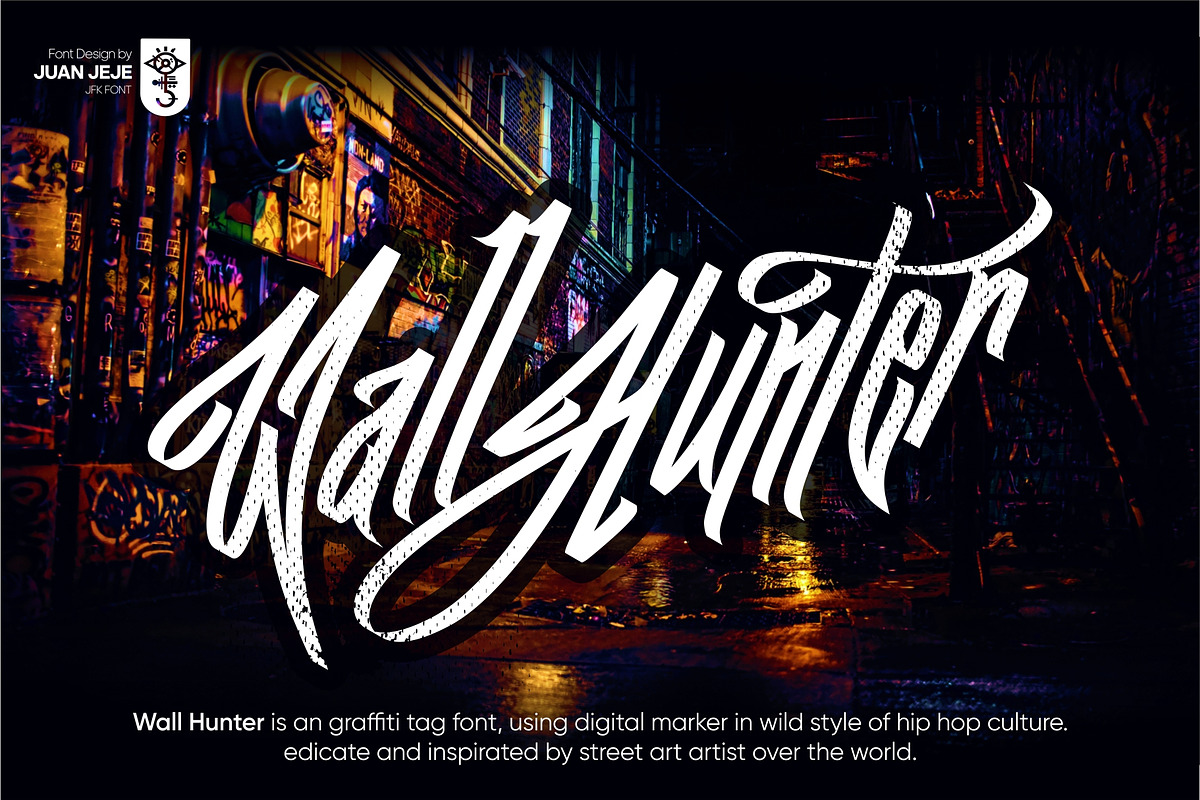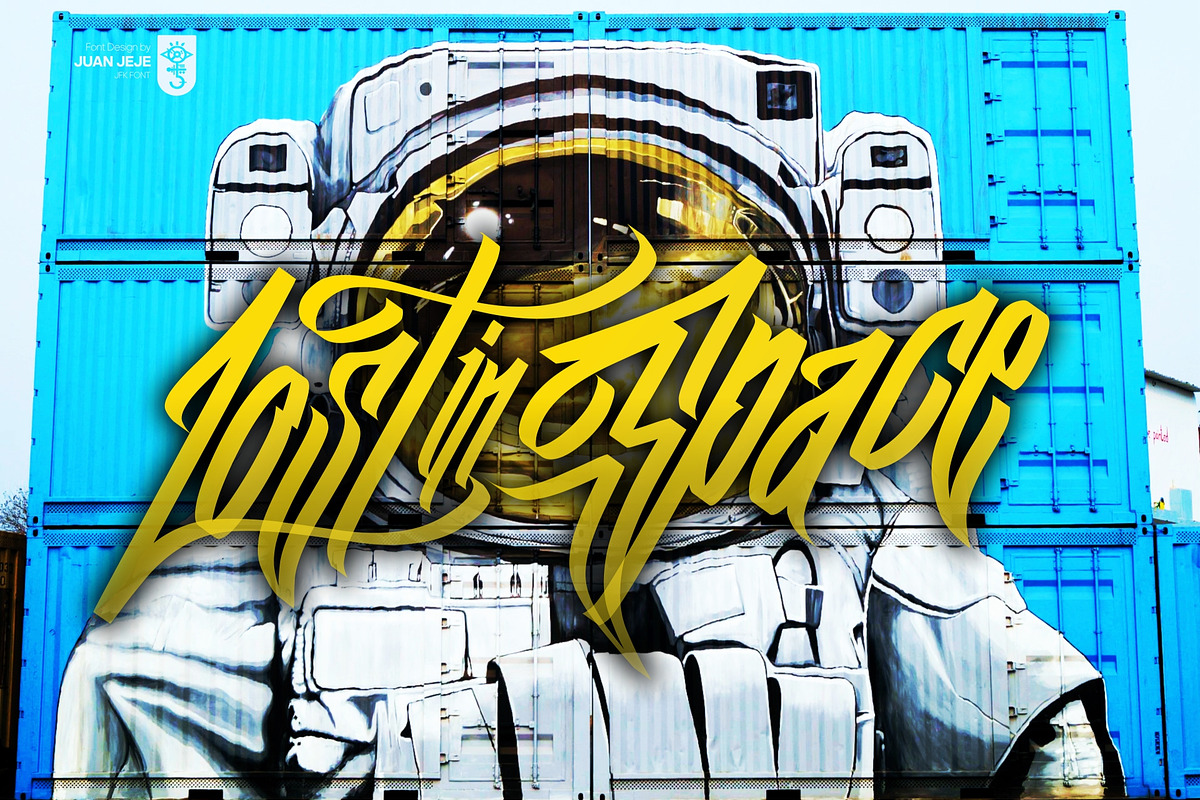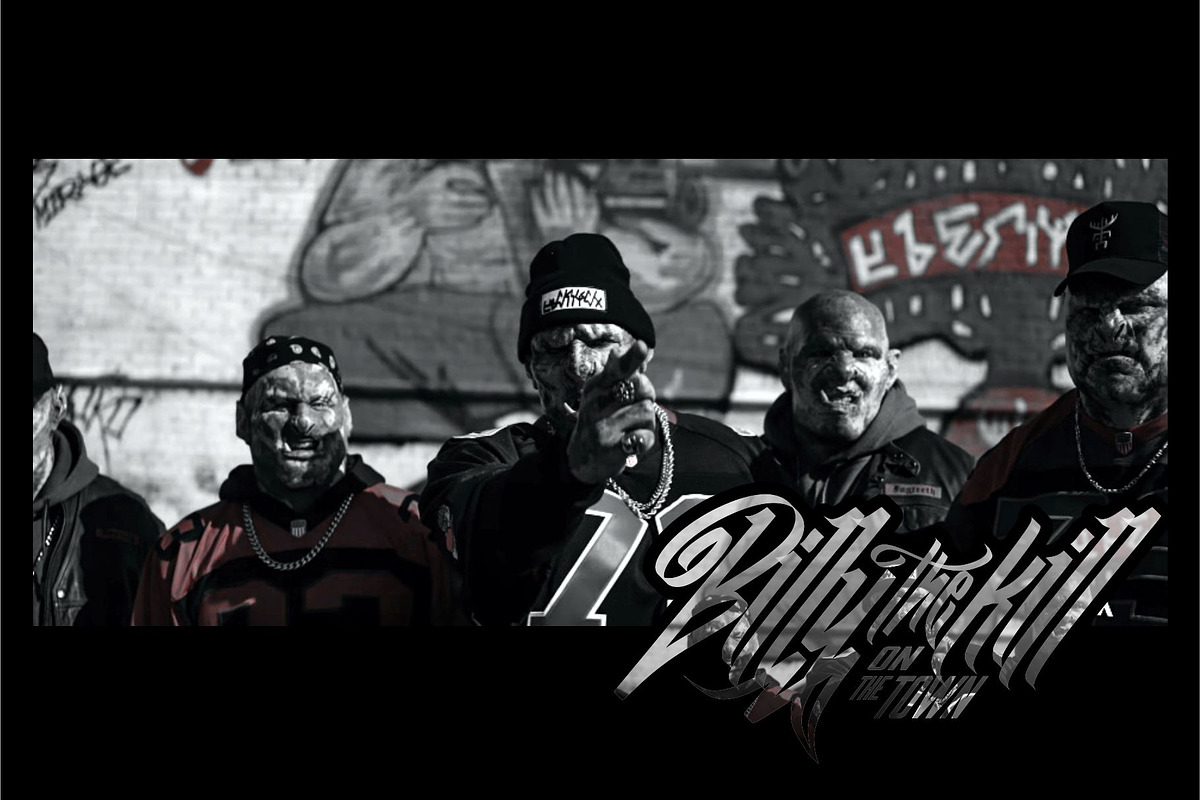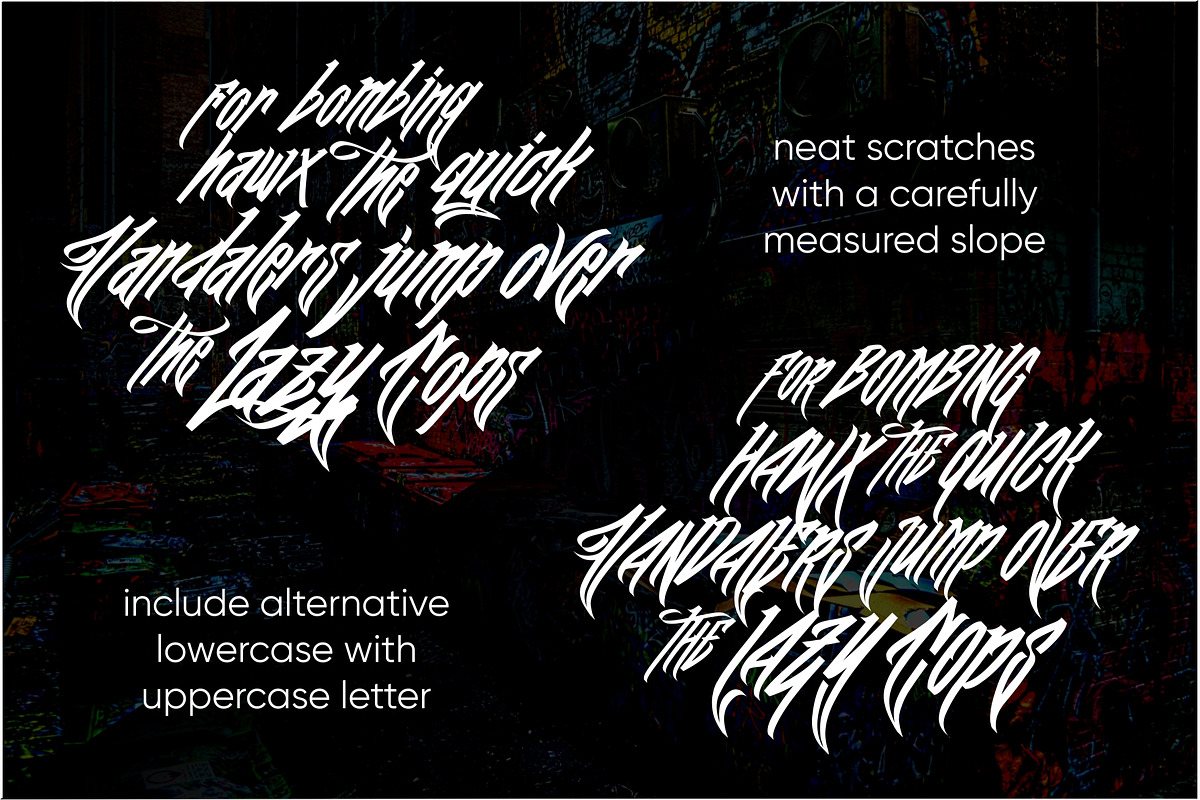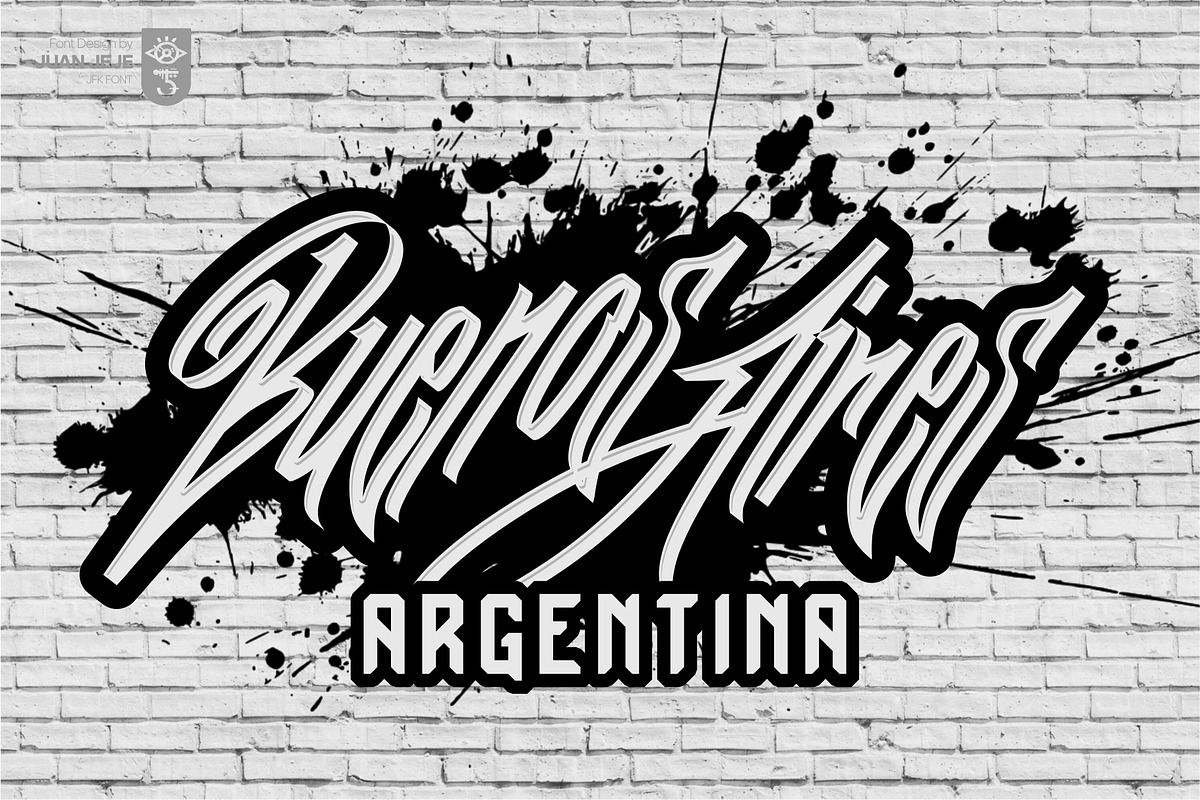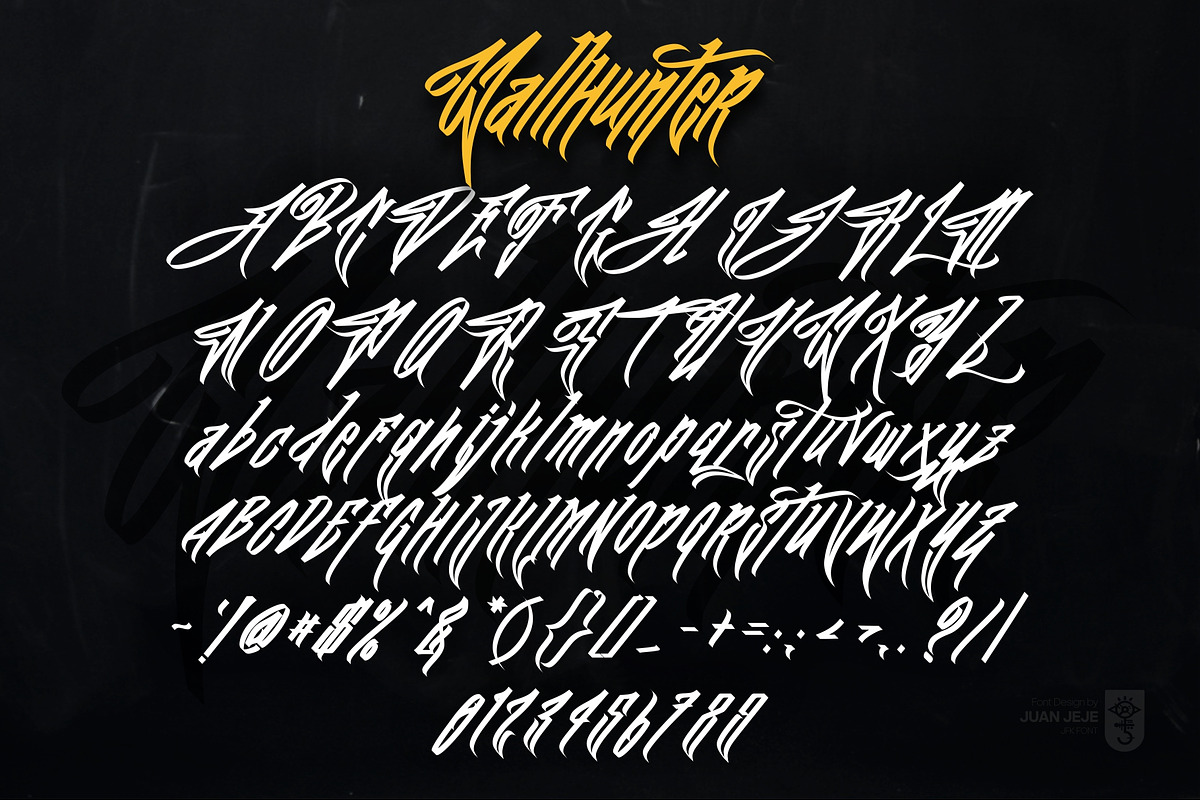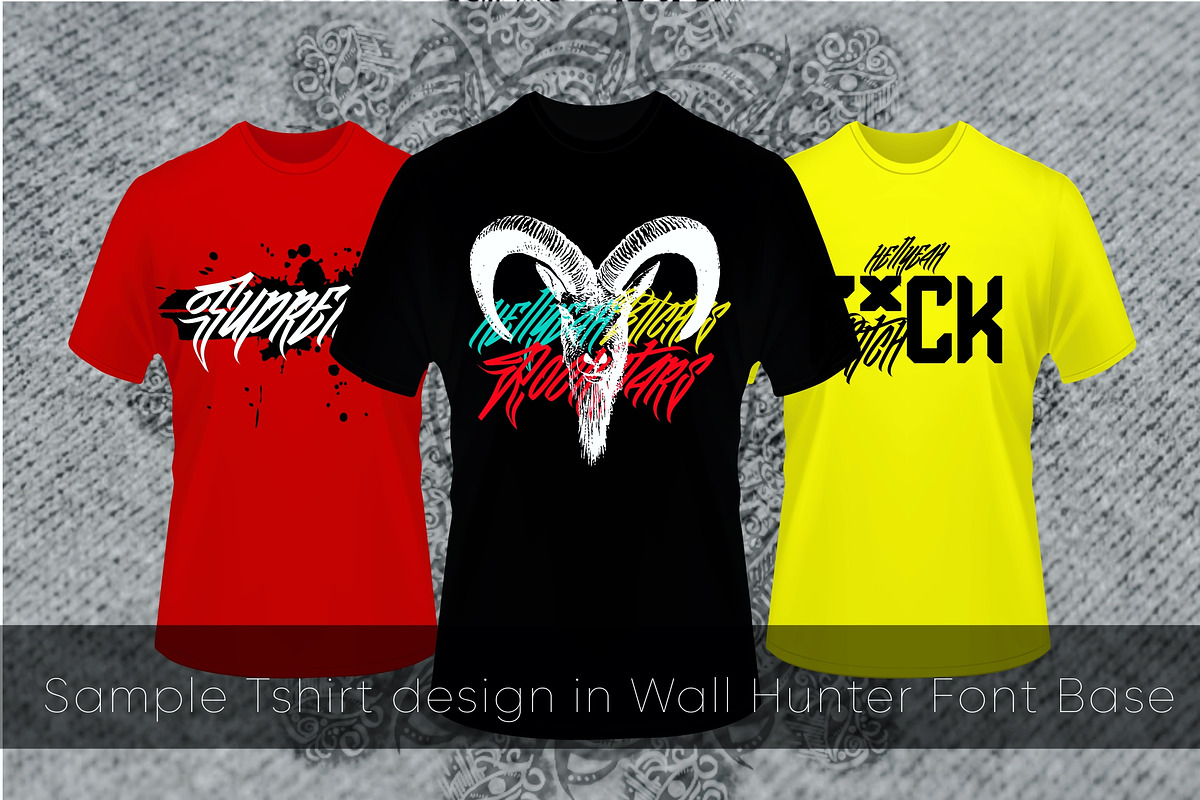
Wall Hunters | Graffiti Tag Fonts UP
Wall Hunter is an graffiti tag font, using digital marker in wild style of hip hop culture. dedicate and inspirated by street art artist over the world.
Update !!! include alternative font, no lowercase (Wall Hunter Alt Low.otf)